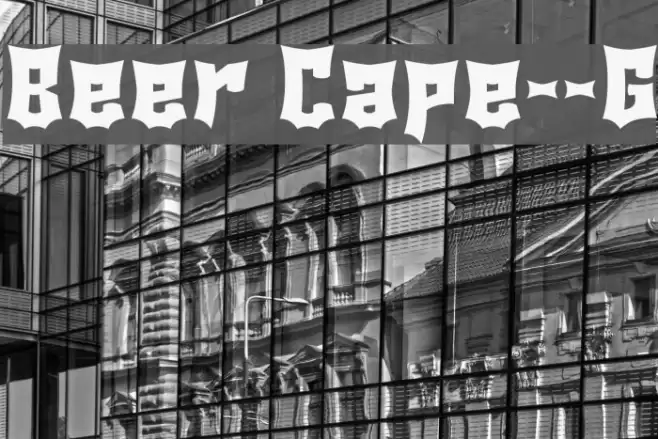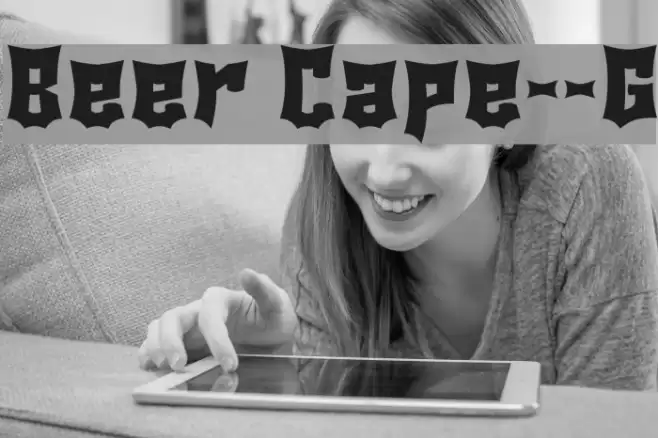
Beer Cape__G Font
Beer Cape__G Description
This font features a bold and dramatic style with sharp, angular edges and a distinct Gothic influence. The characters are heavily stylized, with exaggerated serifs and a strong presence, making it ideal for attention-grabbing designs. The uppercase and lowercase letters maintain a consistent aesthetic, while the numerals and special characters complement the overall theme. The font's unique design elements evoke a sense of mystery and intrigue, suitable for projects that require a bold statement.
A bold, Gothic-inspired font with sharp, angular edges and dramatic serifs from Uncategorized fonts.
- Proposed Projects: Ideal for posters, album covers, branding for edgy or alternative products, and any design needing a bold, dramatic flair.
- Overall Style: Gothic, Dramatic, Bold